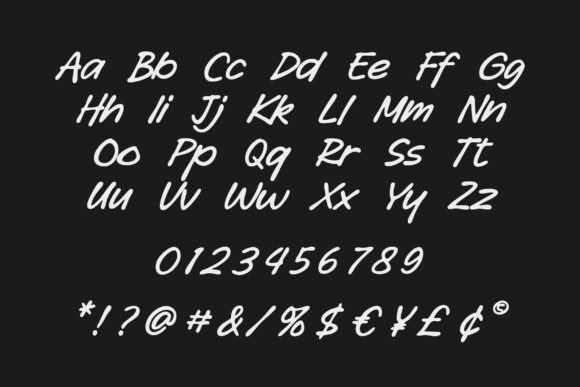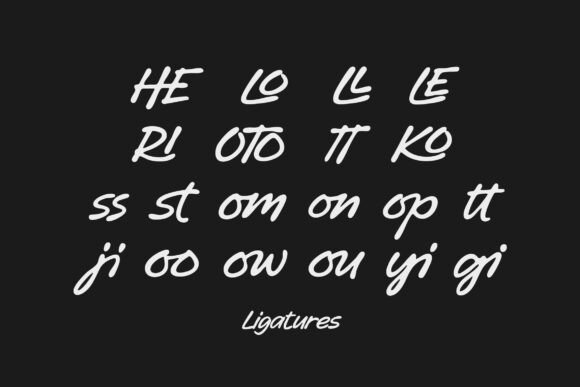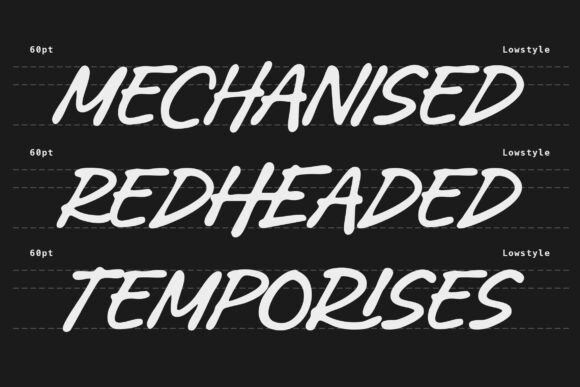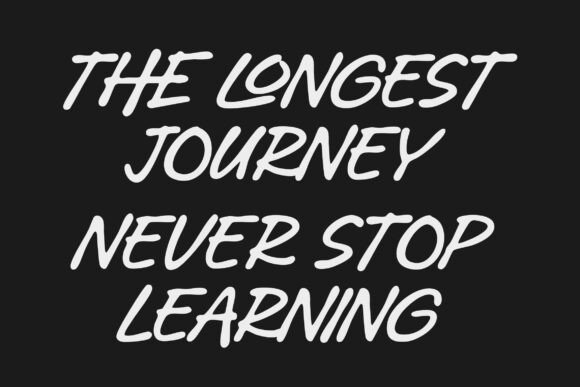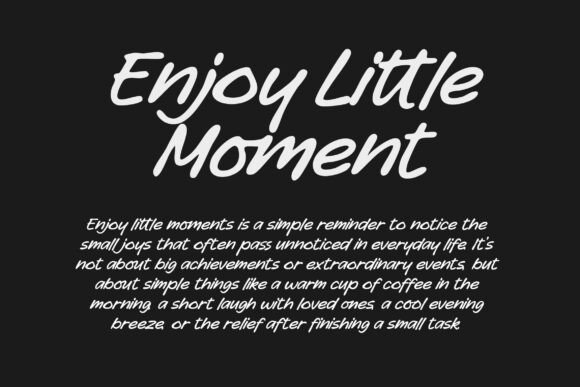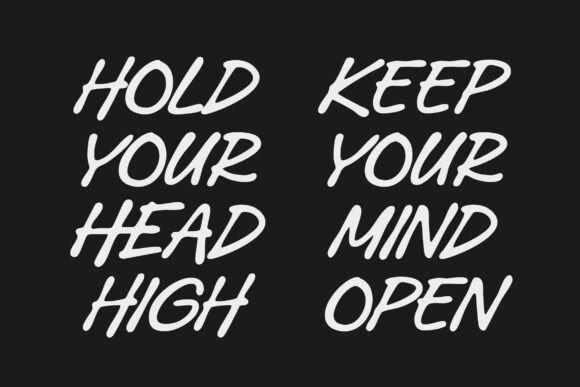
Introduction to Lowstyle Font
Have you ever been brainstorming a creative project, pouring your heart and soul into it, only to realize that the right font can make all the difference? I know I have. There’s something magical about finding that perfect typography that brings your design to life. That’s exactly what the Lowstyle Font does – it adds a touch of warmth, personality, and effortless charm to your designs.
As a designer, you’re always on the lookout for high-quality design resources that can elevate your work and make it stand out. The Lowstyle Font is one such treasure that’s sure to become your go-to companion for creative projects. With its smooth flowing strokes and great readability, this stylish handwriting font is perfect for both personal and commercial projects.
Key Features of Lowstyle Font
- Features a unique, minimalist style with a transparent background
- Comes in a single font size, making it easy to use across various applications
- Designed at a high resolution of 300 DPI for crisp and clear readability
- Perfect for use in logos, branding, and other design elements where simplicity is key
Honest Review: Lowstyle Font
As a designer, I’m always on the lookout for high-quality design resources that can elevate my creative projects. The Lowstyle Font is one such resource that caught my attention recently.
What works well: ✨ The Lowstyle Font is a great addition to any design project, offering a clean and minimalist aesthetic that’s perfect for modern designs. Its transparent background makes it easy to layer with other design elements, giving you a lot of creative freedom. The font is also highly versatile, suitable for a wide range of applications, from logos and branding to web and print design.
What doesn’t work well: ⚠️ While the Lowstyle Font is a great resource, it’s not without its limitations. The font may not be as detailed as some other high-end fonts on the market, and some users may find it a bit too minimalist. Additionally, the font may not be suitable for projects that require a lot of bold, eye-catching typography.
- Highly versatile and suitable for a wide range of applications
- Clean and minimalist aesthetic
- Transparent background makes it easy to layer with other design elements
The Lowstyle Font is a high-quality design resource that can be used in various creative projects. It features a transparent background, making it easy to layer and customize.
Tips for Getting the Most Out of Lowstyle Font
To get the most out of the Lowstyle Font, use it in conjunction with other design resources, such as graphics and textures. Experiment with different font sizes, colors, and styles to create a unique look.
The Lowstyle Font is commonly used in graphic design, web design, and digital marketing projects. It’s particularly useful for creating logos, branding materials, and promotional graphics.